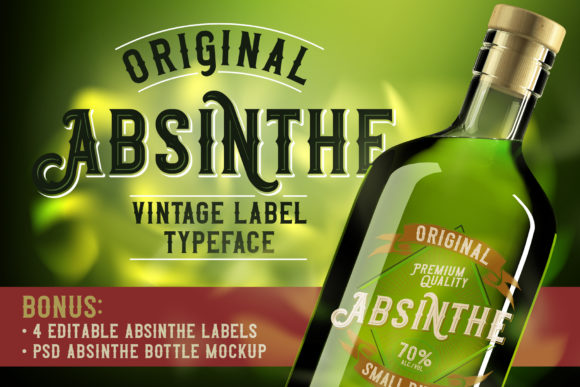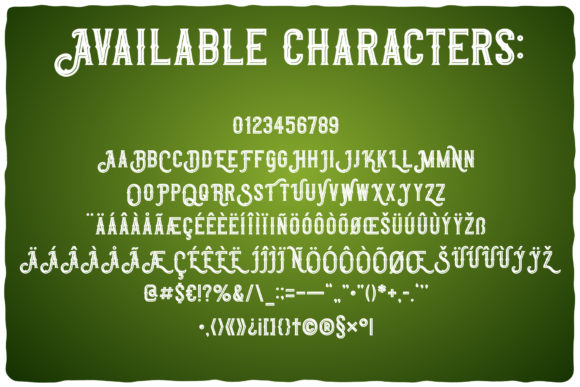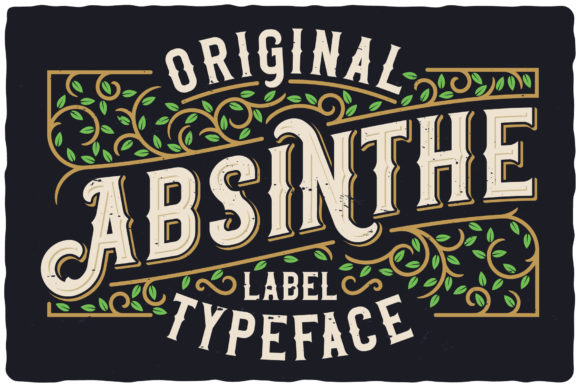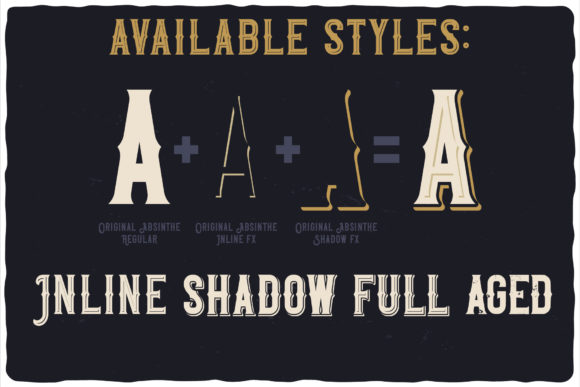
Original Absinthe Font
About the Original Absinthe Font
From logos to headlines, the Original Absinthe Font is the perfect choice for making a lasting impression. Original Absinthe is an incredibly authentic, bold and vintage styled display font. Whether you choose it for your labels, logos or headlines, this font will most definitely add value to your projects.
Original Absinthe excels in headline applications, particularly for projects requiring a strong vintage aesthetic. It’s ideal for branding materials needing a bold, retro feel, such as posters, logos, and packaging for spirits, clothing, or music. Avoid using it for body text or long paragraphs; its highly stylized forms are not optimized for readability in smaller sizes.
The font’s core personality is confident and rebellious, with a touch of vintage charm. This makes it unsuitable for projects requiring a clean, minimalist, or overly friendly feel. It pairs well with clean sans-serif fonts like Futura or Helvetica for a balanced contrast, or with a more delicate script font for a layered, vintage feel. Consider pairing it with a geometric sans-serif for a modern yet vintage twist.
For example, pairing it with a neutral serif like Garamond can soften its boldness while maintaining a high degree of visual impact. The choice depends heavily on the desired balance of vintage and modernity.
Original Absinthe Font Usage Examples
Original Absinthe Font Example